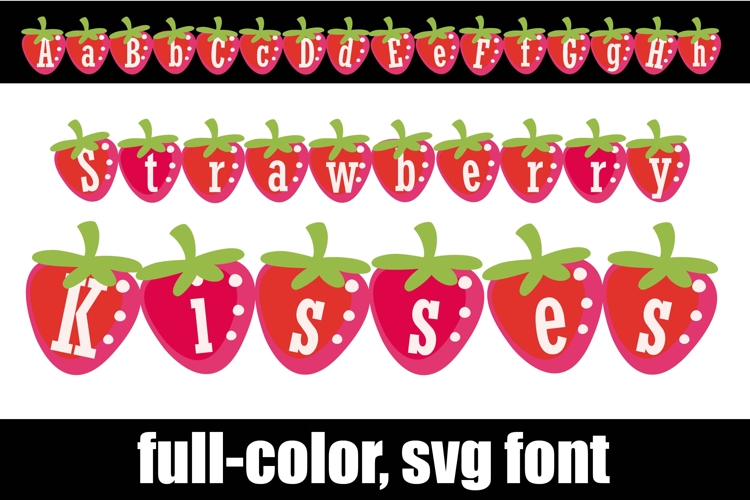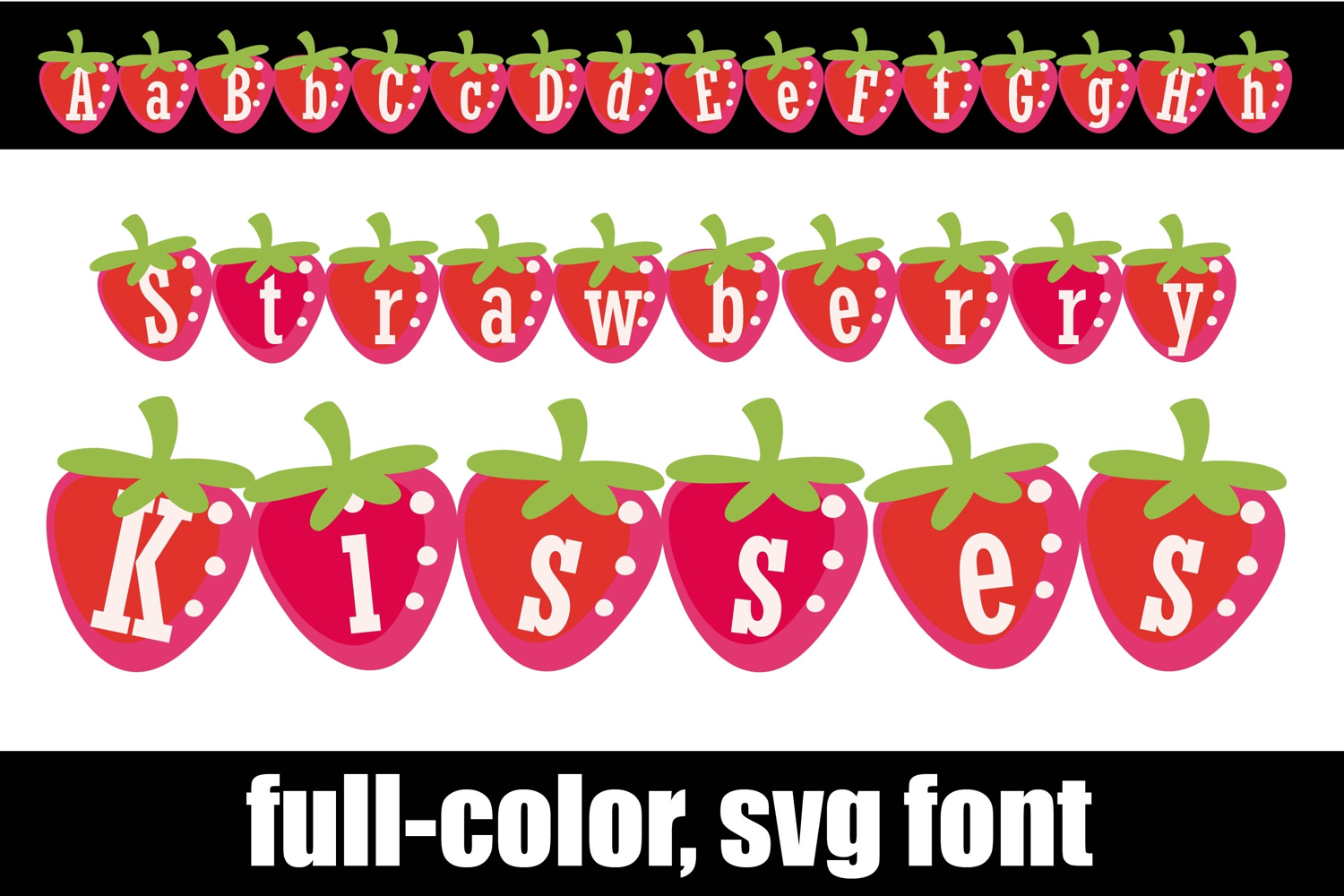
Strawberry Kisses Color Font
This hand-crafted font is a full-color font featuring strawberries. There is an alt case of each letter with a different color combination.